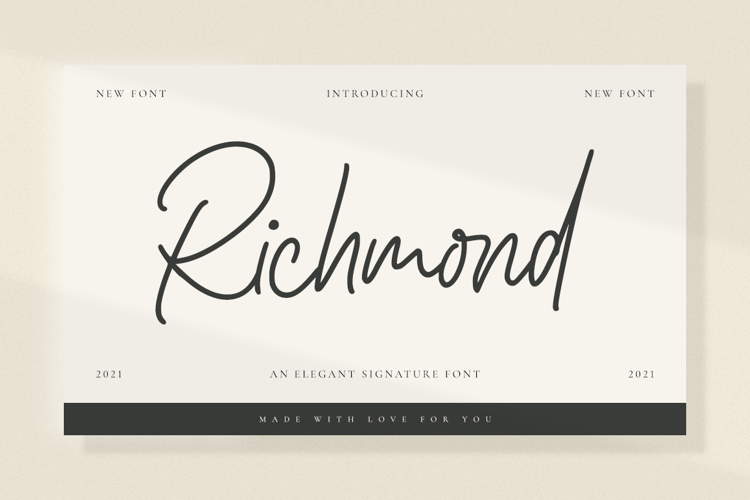
Richmond Font
Richmond is a signature font with a natural handwritten look. It is equipped with swashes, ligatures, and multiple styles to make it a versatile font. Richmond can be used for various purposes such as: signatures, watermarks, magazines, quotes, website, titles and much more!